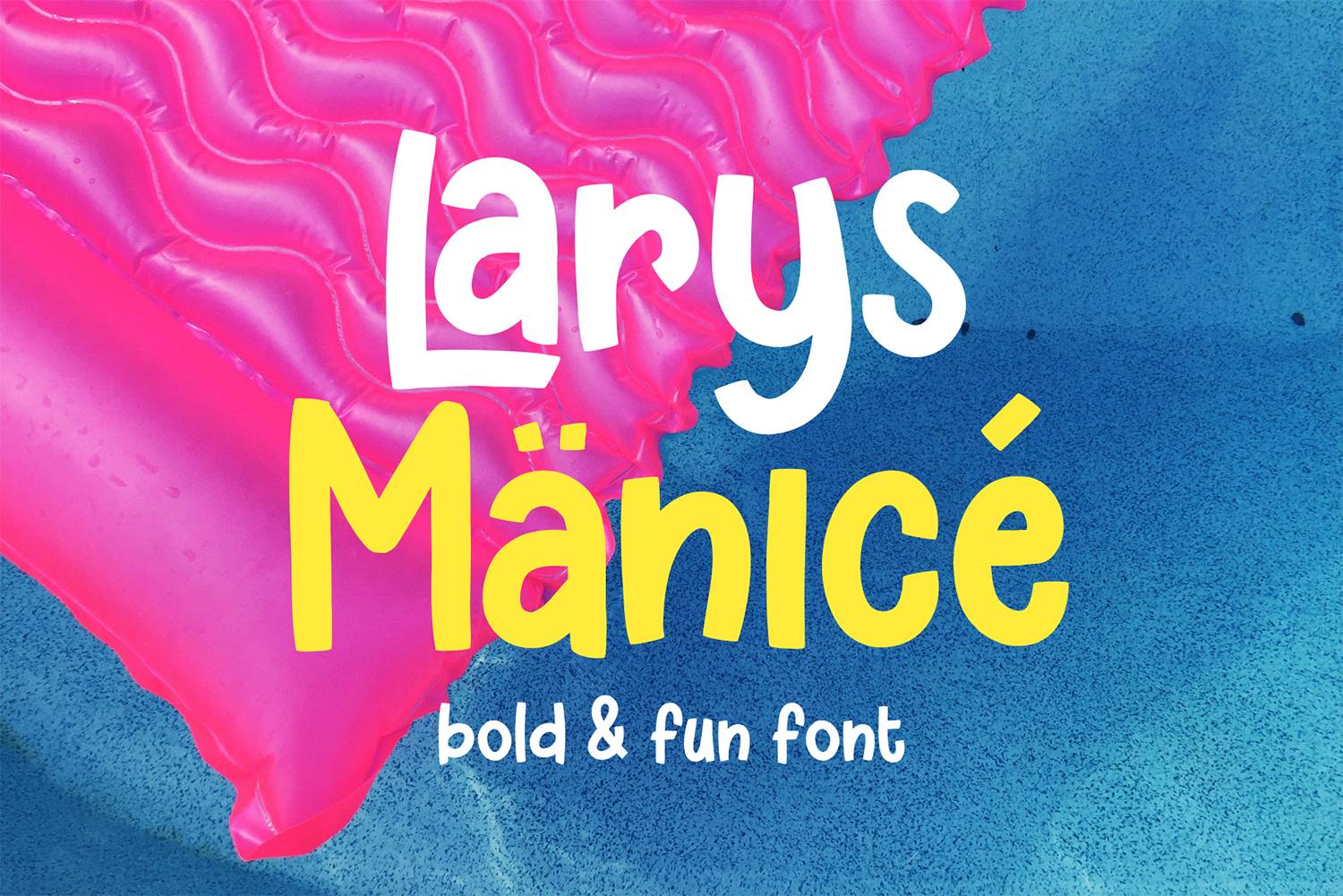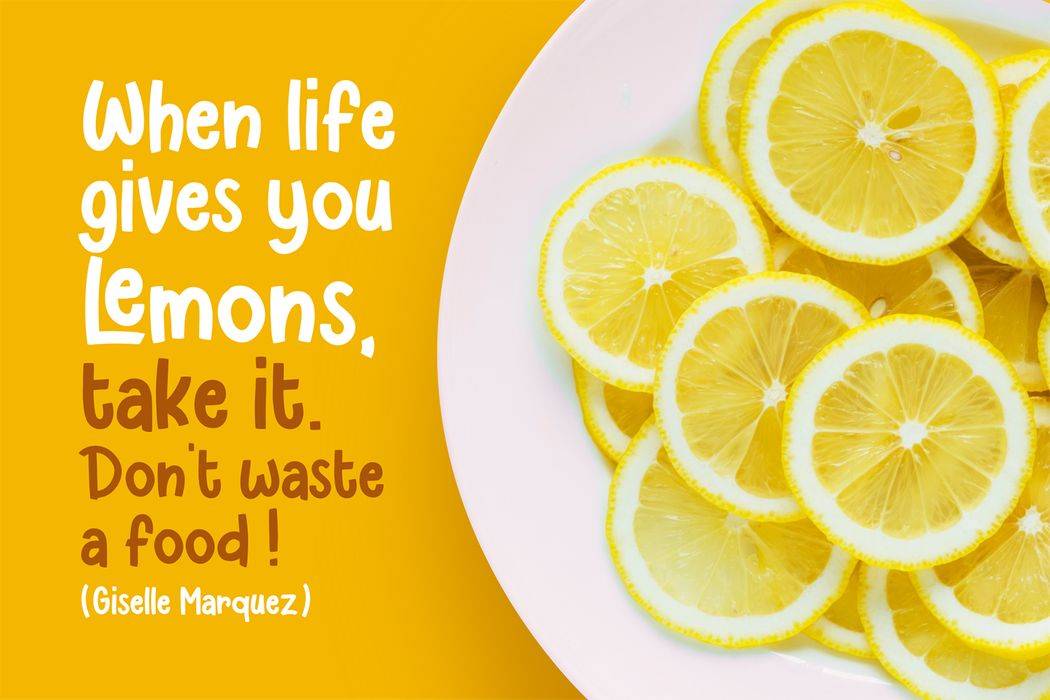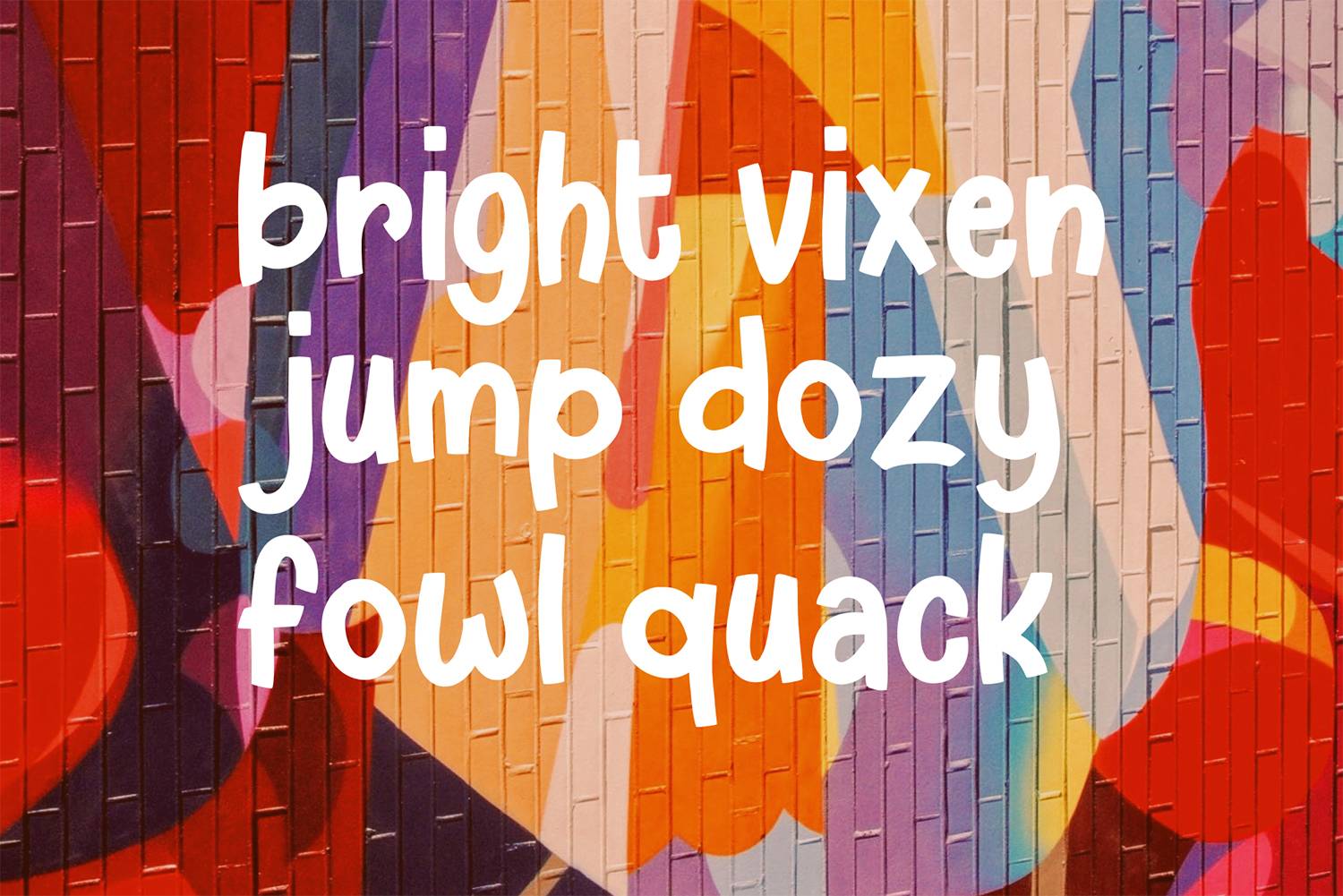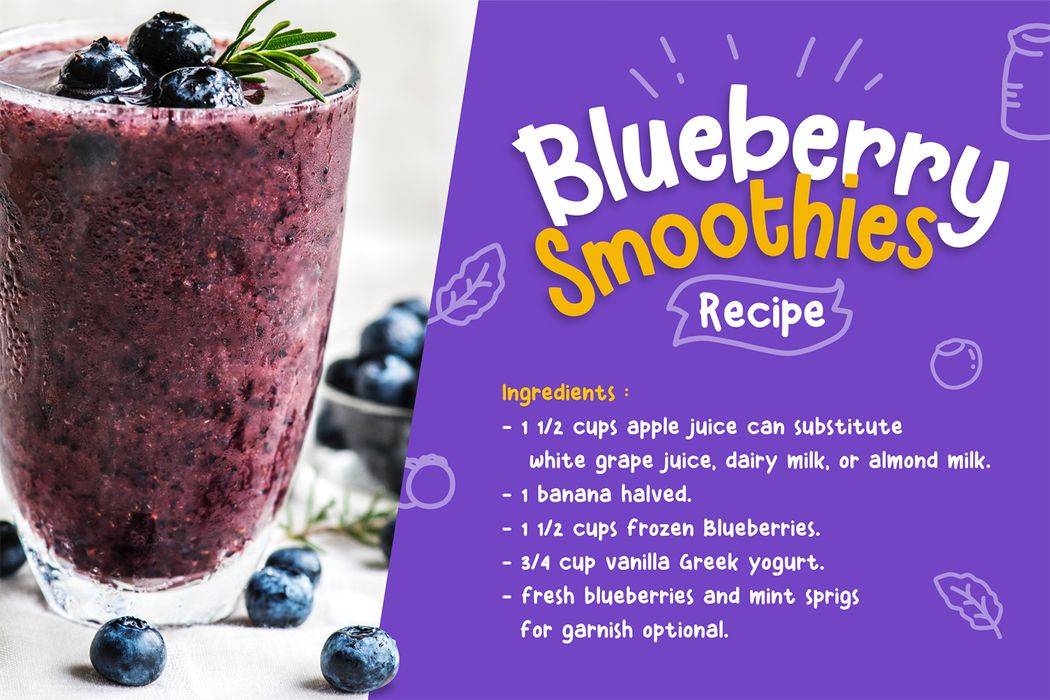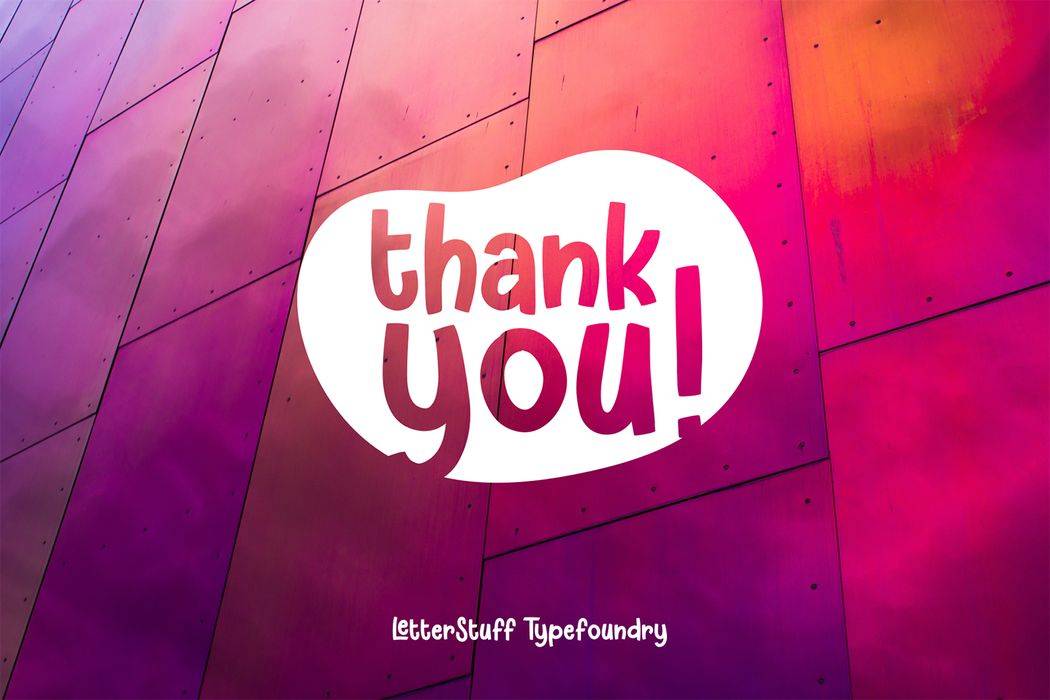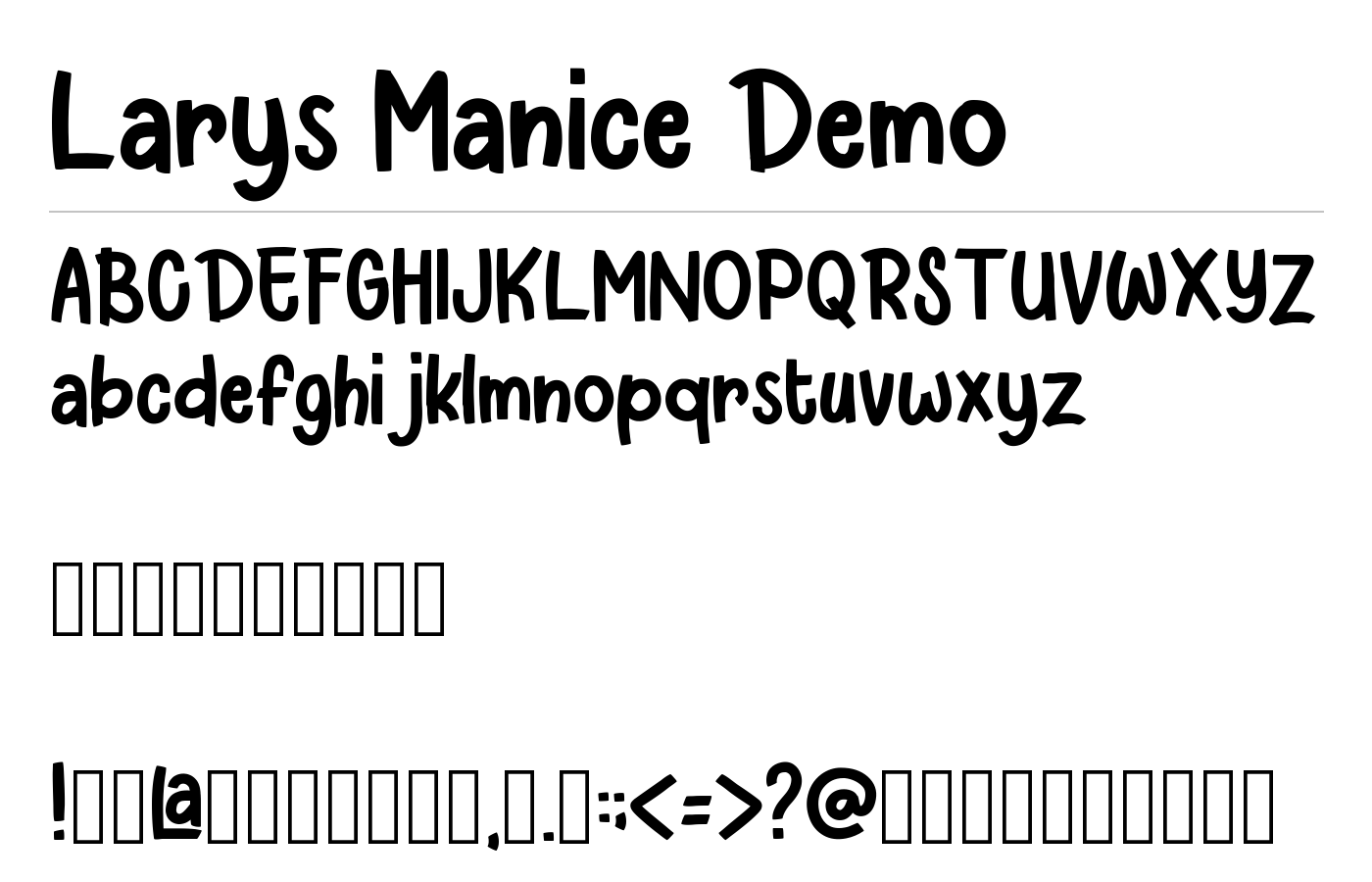
Larys Manice is a playful and casual sans serif font with a hand-drawn feel, featuring rounded, slightly irregular letterforms that convey warmth and friendliness. Its medium weight and moderate x-height make it highly readable, while the quirky shapes add personality, making it perfect for fun, informal branding, children’s content, or creative projects seeking a relaxed and approachable vibe.
Larys Manice Font
About Larys Manice Font